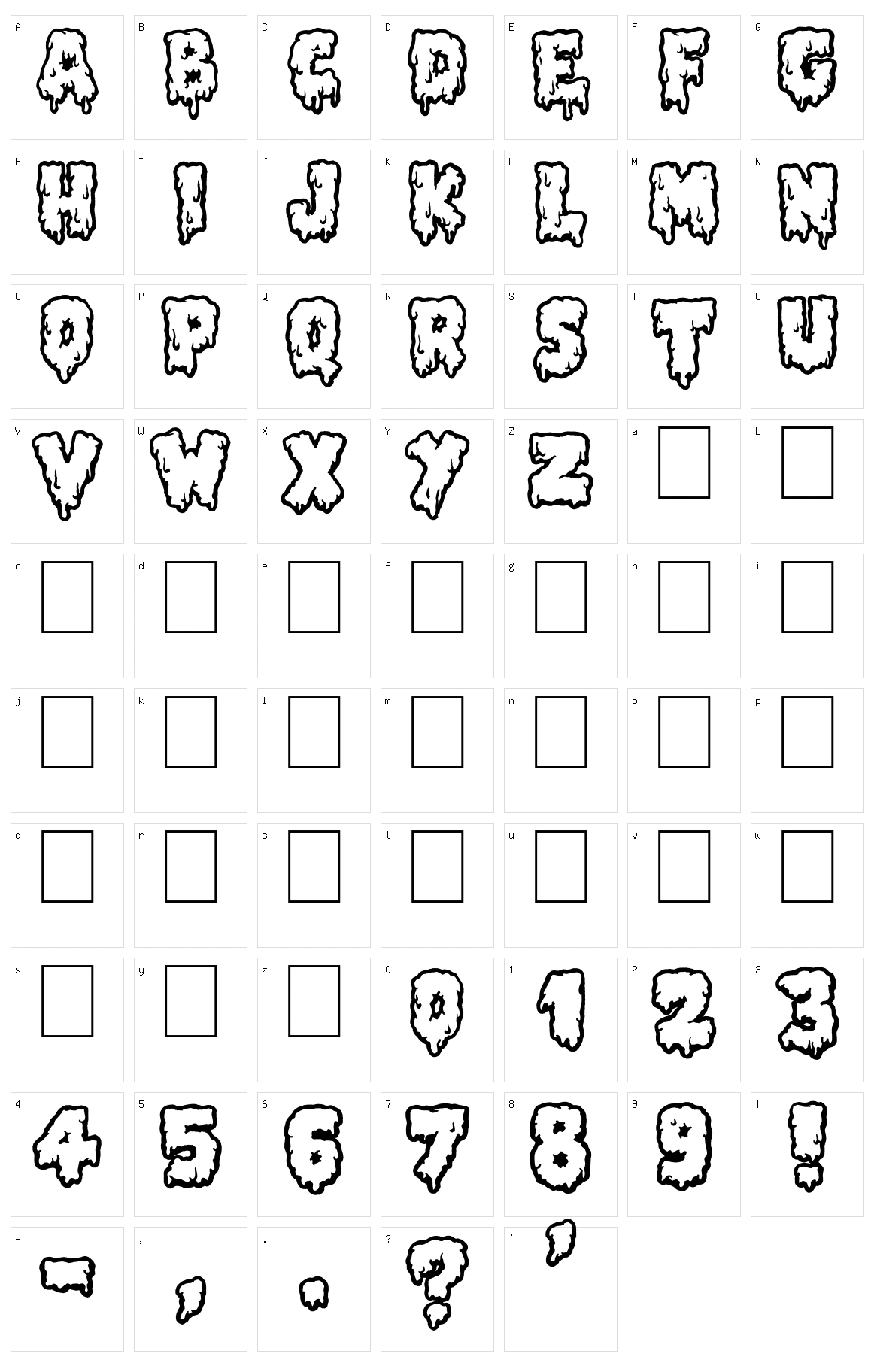
The free font Lethal Slime is carefully designed by imagex, showcasing a thoughtful balance of creativity and usability and falls under the Horror font style. When you download the ZIP file, it contains only 56.28 KB of font files, making it lightweight and quick to download. Please review the license details below to understand permitted usage and distribution rights. If license information is not available, we recommend using this font for personal projects only or contacting the author directly for commercial usage permissions.